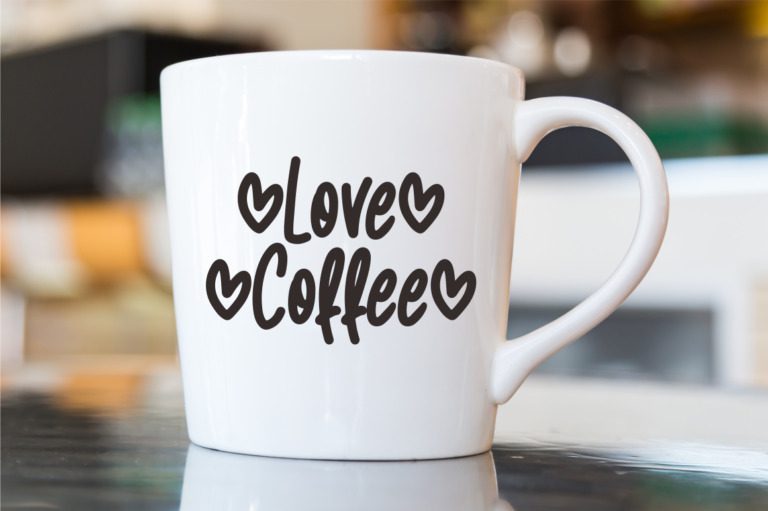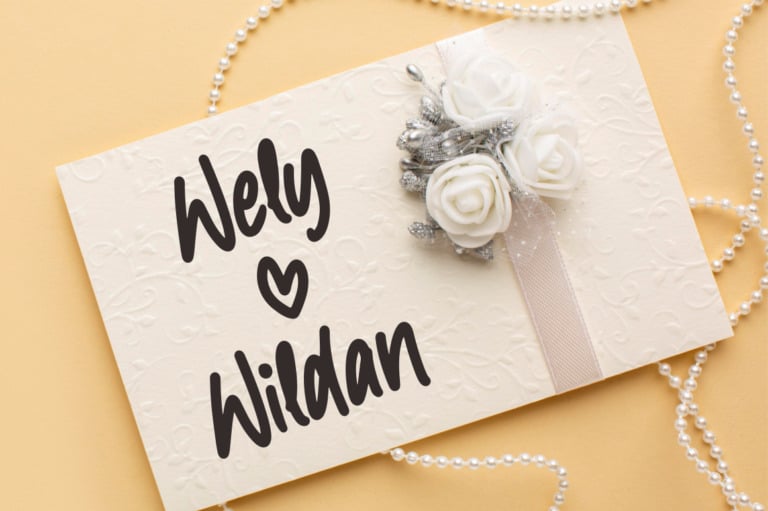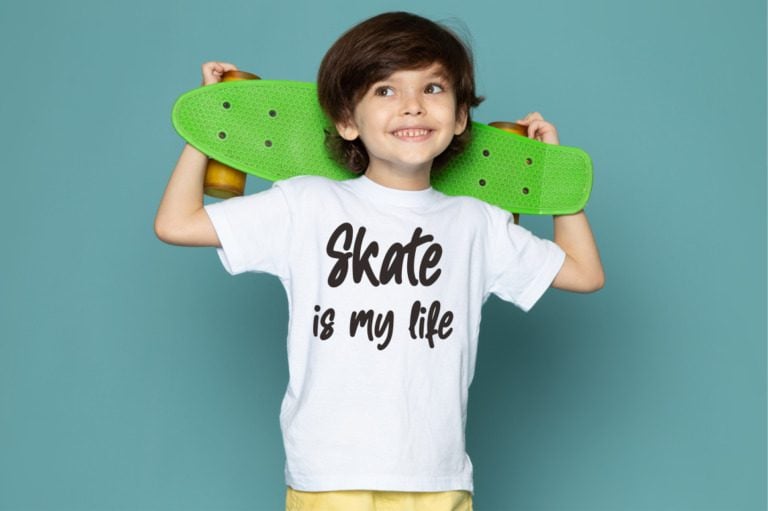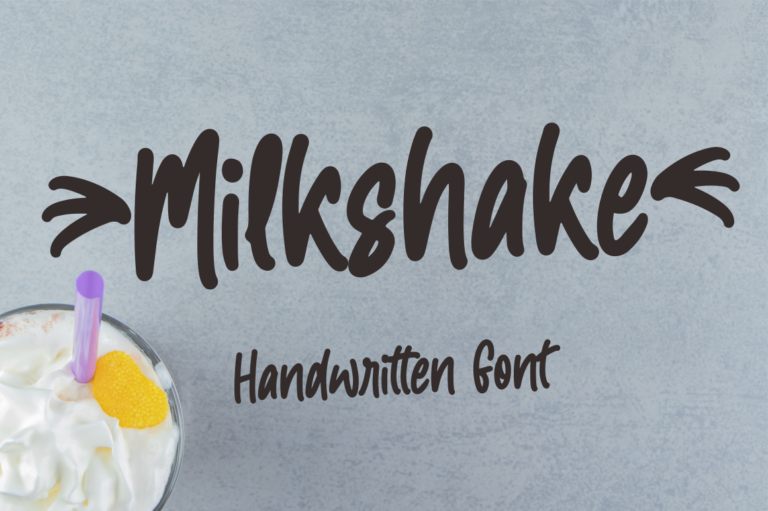
Milkshake Font
Milkshake is a fun and playful handwritten fonts that evokes a sense of sweetness and nostalgia. Its flowing curves and delicate details create a sense of whimsy and fun, making it perfect for invitations, greeting cards, and other creative projects. With its friendly and inviting aesthetic, Milkshake is sure to add a touch of personality to any design.